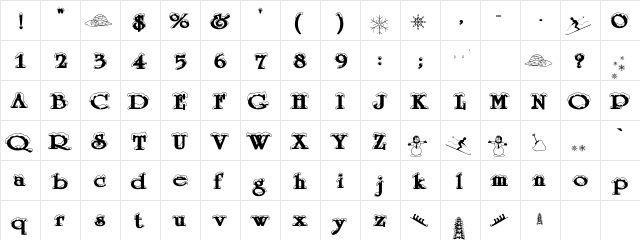
Winter Wonderland Regular
Design Context for Winter Wonderland Typeface
Winter Wonderland is a composed and adaptable typeface that performs quietly and consistently across a wide range of design contexts.
Pro Tip: Use Winter Wonderland in both headline and body roles to test its range before committing to a single application.